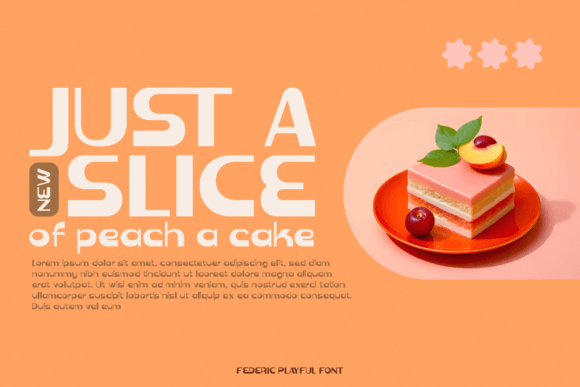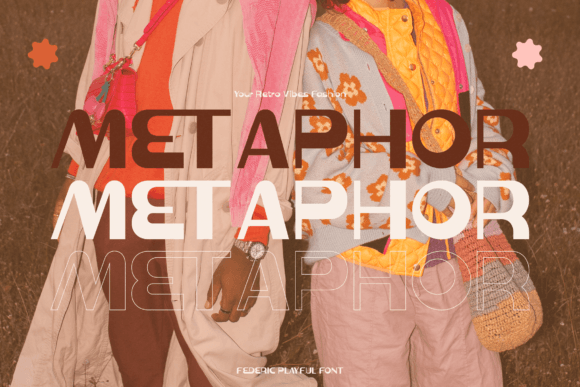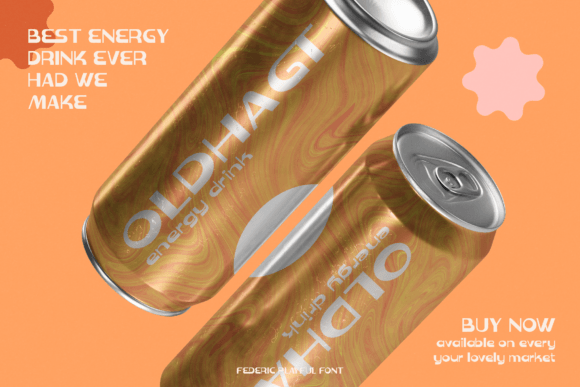
The Ultimate Guide to Federic Playfull Font: Adding a Cheerful Touch to Your Designs
I’ll never forget the time I was working on a project for a children’s birthday party invitation. I had the design concept all sorted out, but I was struggling to find the perfect font to capture the playful and fun vibe of the event. That’s when I stumbled upon Federic Playfull, a bold and cheerful display font that instantly brought my design to life! In this article, I’ll share my experience with Federic Playfull, its unique features, and how to make the most of it in your designs.
An Honest Review of Federic Playfull
- ✨ Playful curves and unique shapes: Federic Playfull’s distinctive design makes it perfect for eye-catching titles and creative designs.
- ✅ Easy to read: Despite its bold and playful nature, Federic Playfull remains surprisingly legible, even at smaller sizes.
- 💥 Versatile: This font can add a cheerful touch to a wide range of projects, from party invitations to branding and advertising.
While Federic Playfull is an amazing font, there are a few things to keep in mind:
- 🤔 Limited use cases for body text: Due to its bold and playful nature, Federic Playfull might not be the best choice for longer blocks of text.
- ⚠️ May not work well with formal designs: If you’re going for a more professional or formal look, Federic Playfull might not be the best fit.
The Designer Inspiration Behind Federic Playfull
Federic Playfull was designed with the intention of creating a font that would bring a smile to people’s faces. Its playful curves and unique shapes are inspired by the joy of childhood and the beauty of imperfection. The designer aimed to create a font that would be perfect for designs that require a cheerful and energetic touch.
Q: What type of projects is Federic Playfull best suited for?
A: Federic Playfull is perfect for designs that require a playful and cheerful touch, such as party invitations, branding, and advertising.
Q: Can I use Federic Playfull for body text?
A: While Federic Playfull is easy to read, it might not be the best choice for longer blocks of text due to its bold and playful nature.